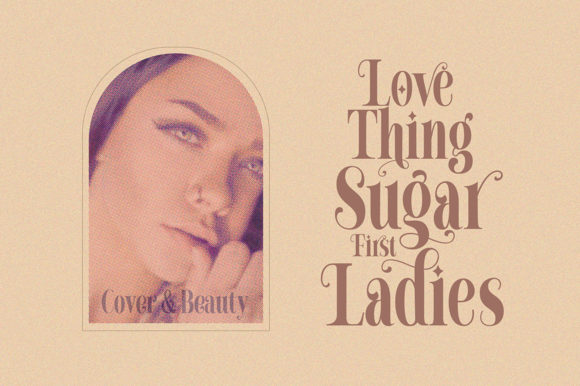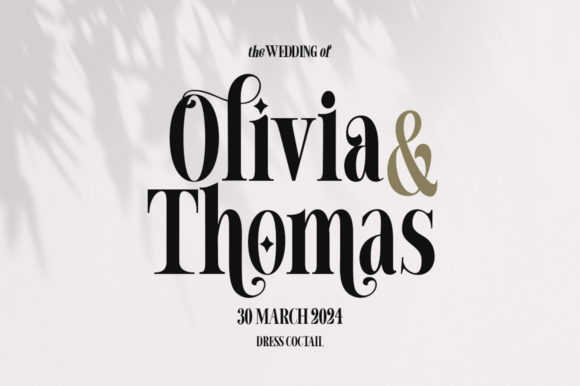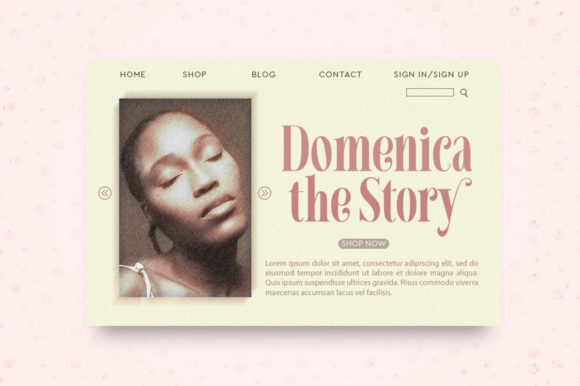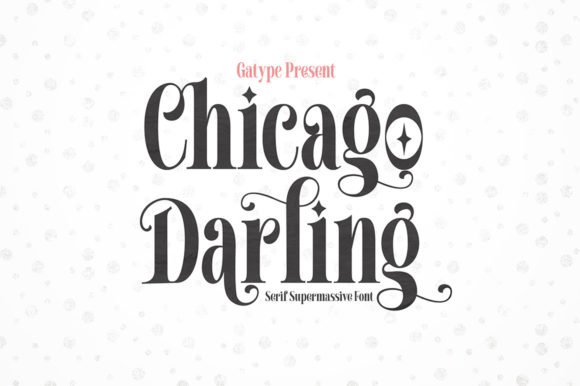
Introduction to Chicago Darling Font
Chicago Darling is an elegant and trendy serif font.
It is PUA encoded which means you can access all of the glyphs and swashes with ease Add it confidently to your favorite creations and let yourself be amazed by the outcome generated.
Key Features of Chicago Darling Font
Why Choose Chicago Darling Font?
Chicago Darling Font offers exceptional quality and versatility, making it a valuable addition to your design toolkit. Whether you’re creating for personal projects or commercial use, Chicago Darling Font delivers professional results.